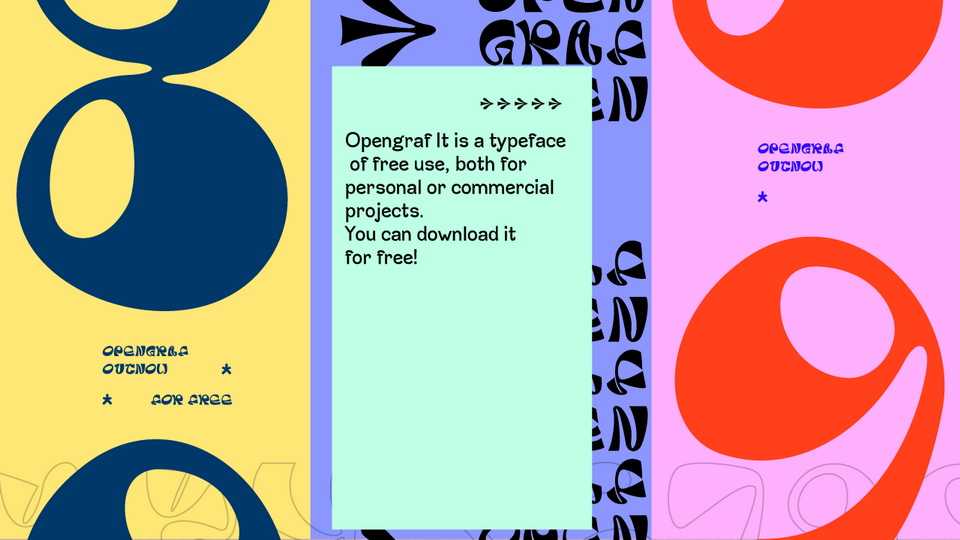
Download Opengraf font, a display typeface created by a simple idea to break with the classic and give a fresh touch to your design! Opengraf is ideal for short titles, or accompanied by a second sans-serif typeface.
Designer: Gustavo Gabriel